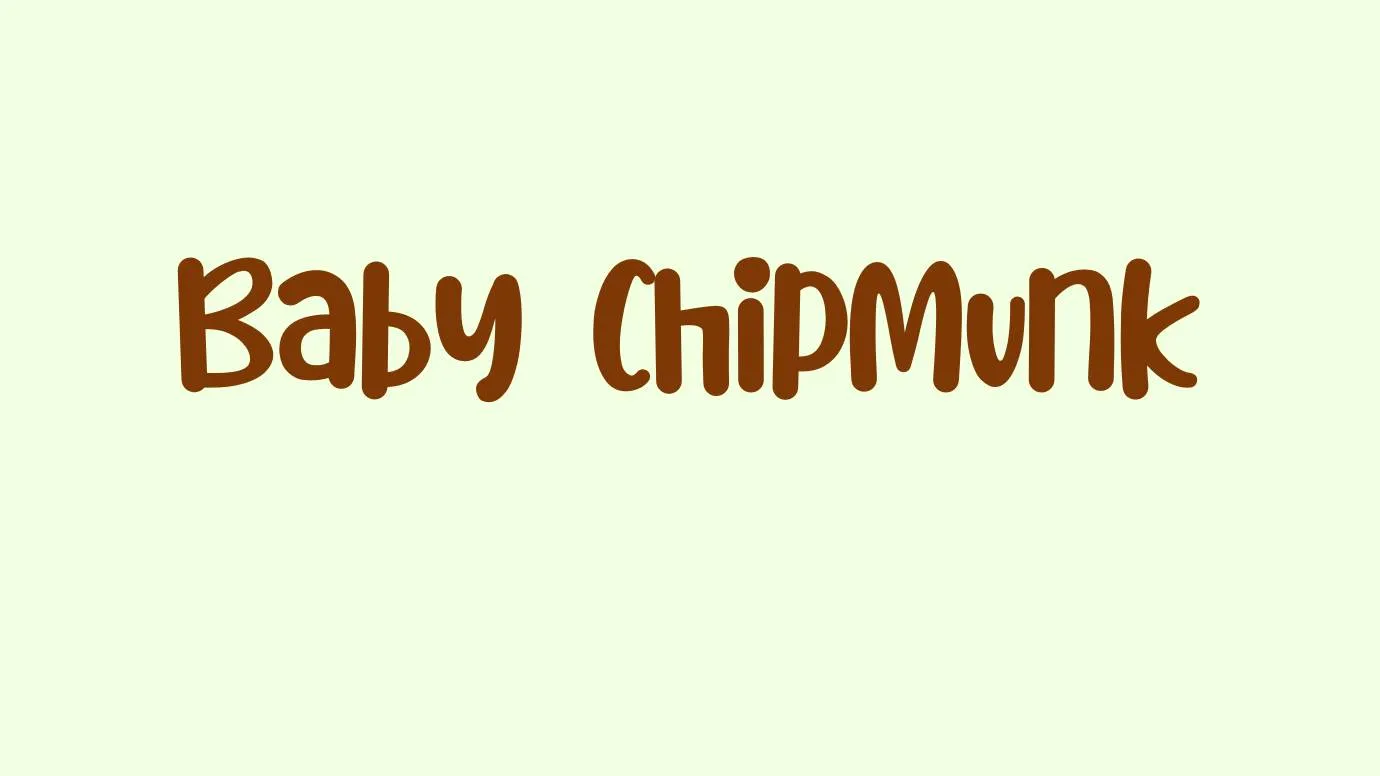
Baby Chipmunk Font Family is a very fancy type font. This amazing font is designed by Stefani Tri Rosa Sestiati Christiana and Stefani Letter. All the letters of this font are very attractive and are in round shape which gives your projects a very loveable look.
This Font is perfect for kids-related projects also. It was inspired by a very lovely and cute cartoon baby chipmunk and used for different projects. It also supports different international languages.